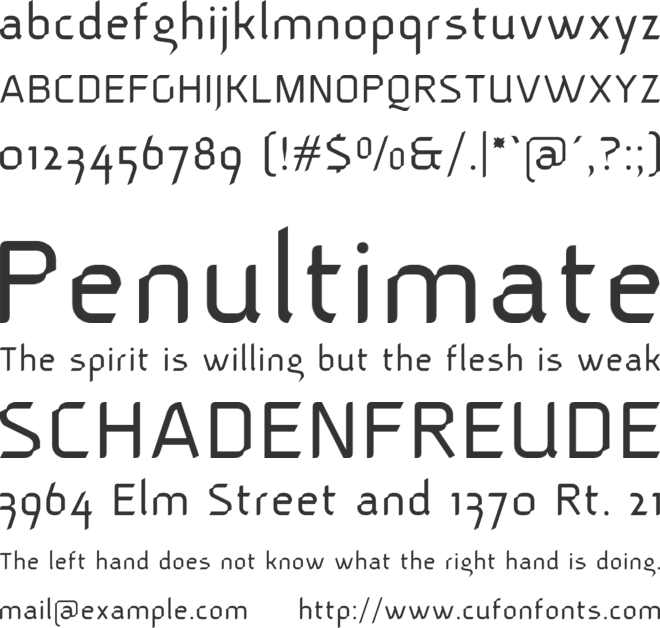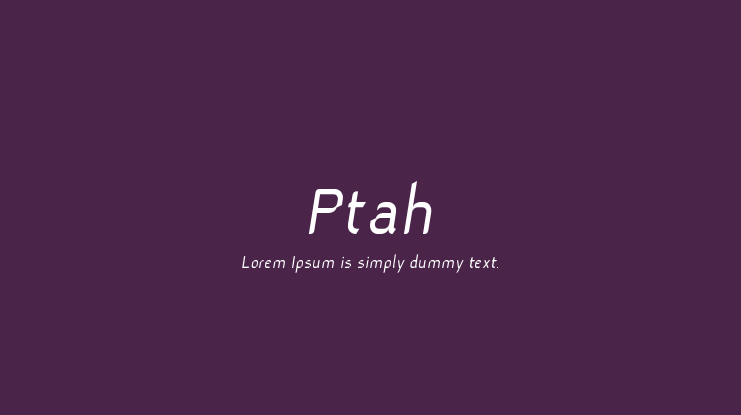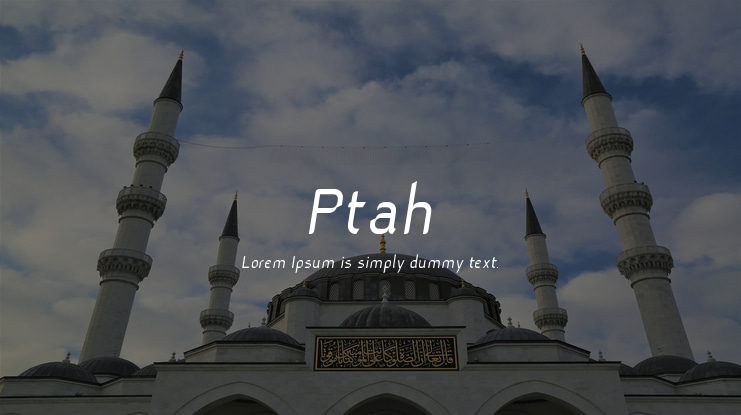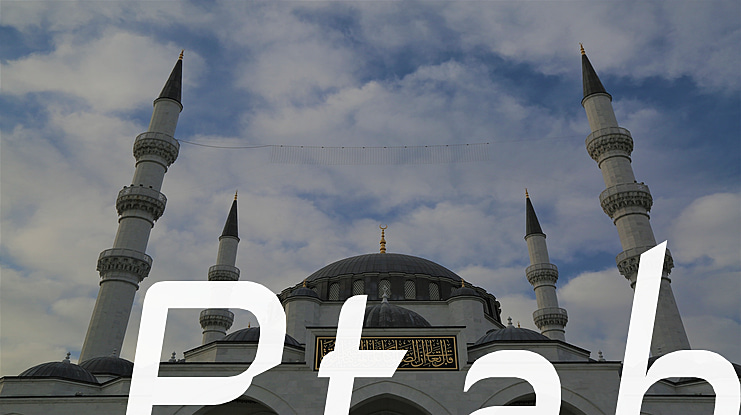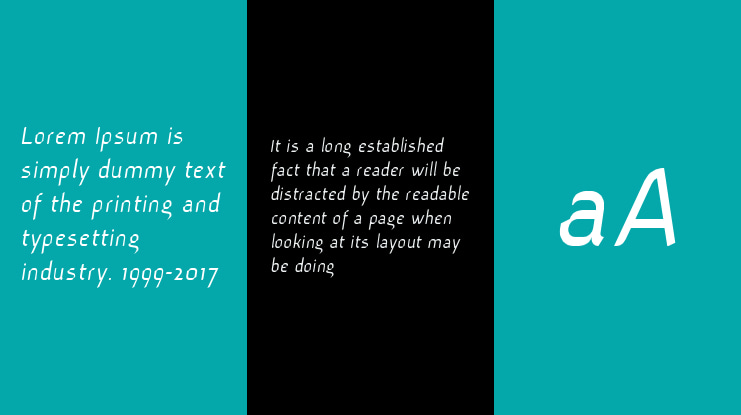
Update 1/7/2019, version 1.1. I’ve altered the capital Q and W, the majority of the punctuation, and added lowercase and Mayan numbers as well as some more characters. This version now supports virtually all First Nation and African languages. Note: The Private Use Area glyphs are mapped to the same code points as those in Dehuti and Dehjuti. —Ptah was originally created for use as a title font for a series that I've been working on. I created it with fonstruct, so it is modular, and since its creation, it has had some changes. If you view it on fontstruct, you'll notice them. Ptah has now become a font for use with whatever project I feel that it connects with. I currently use it for my music project, Ib, which you can listen to on Bandcamp (ibmusic1.bandcamp.com).